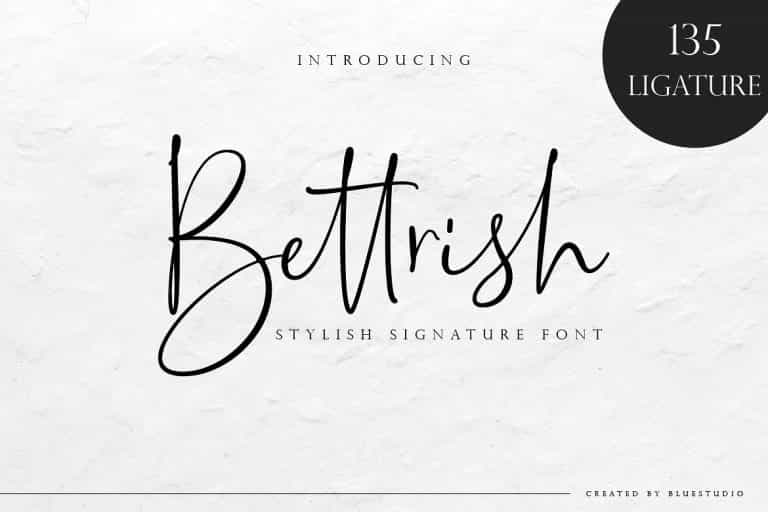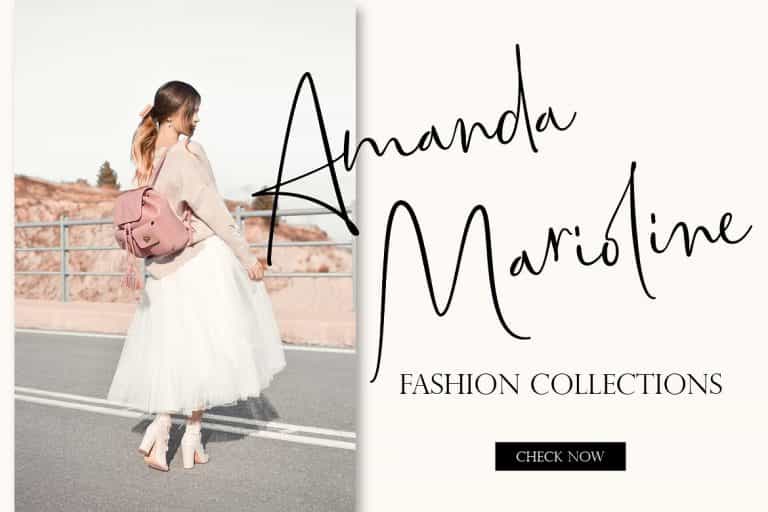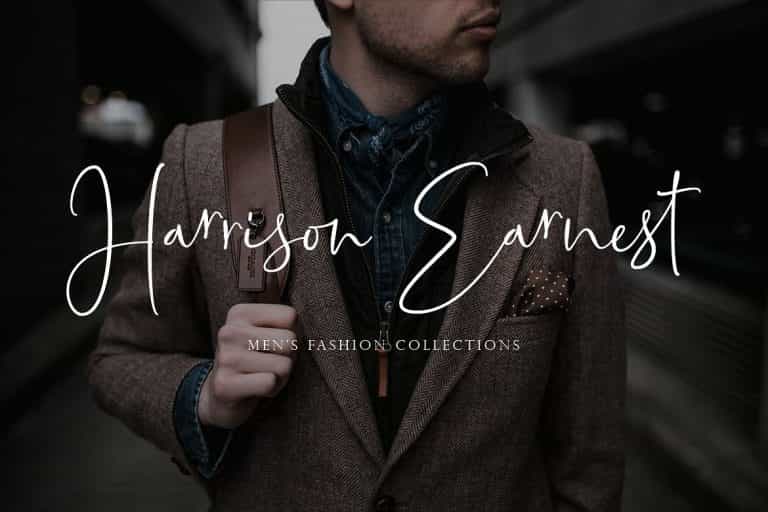
Discover Bettrish Signature Font, part of the Calligraphy Handwritten collection—a versatile and unique font perfect for adding a personal touch to your projects. Download it for free and enjoy crafting designs with style, from invitations to social media posts. This font is available exclusively for personal use, giving you the freedom to create without limits. Unlock your creativity with Bettrish Signature Font today!
Here it is the Bettrish Script, which is a Realism Signature font that will definitely make your typography or lettering beautiful. Bettrish is designed to be like hand scratches, so it looks as if your own handwriting.